The Sailor Moon Font, inspired by the iconic Japanese anime and manga series created by Naoko Takeuchi, embodies a whimsical and magical aesthetic.
While the series uses several fonts for different text elements, the closest public typefaces to the series’ distinct style are Wish MF by Richard William Mueller for “Sailor Moon,” Oh You Klid by Nick Curtis for “Crystal,” and Hardly Worth It by Nick Curtis for “Pretty Guardian.” These fonts reflect the enchanting and nostalgic vibe of the Sailor Moon brand, making them ideal for projects that aim to capture the essence of the beloved series.
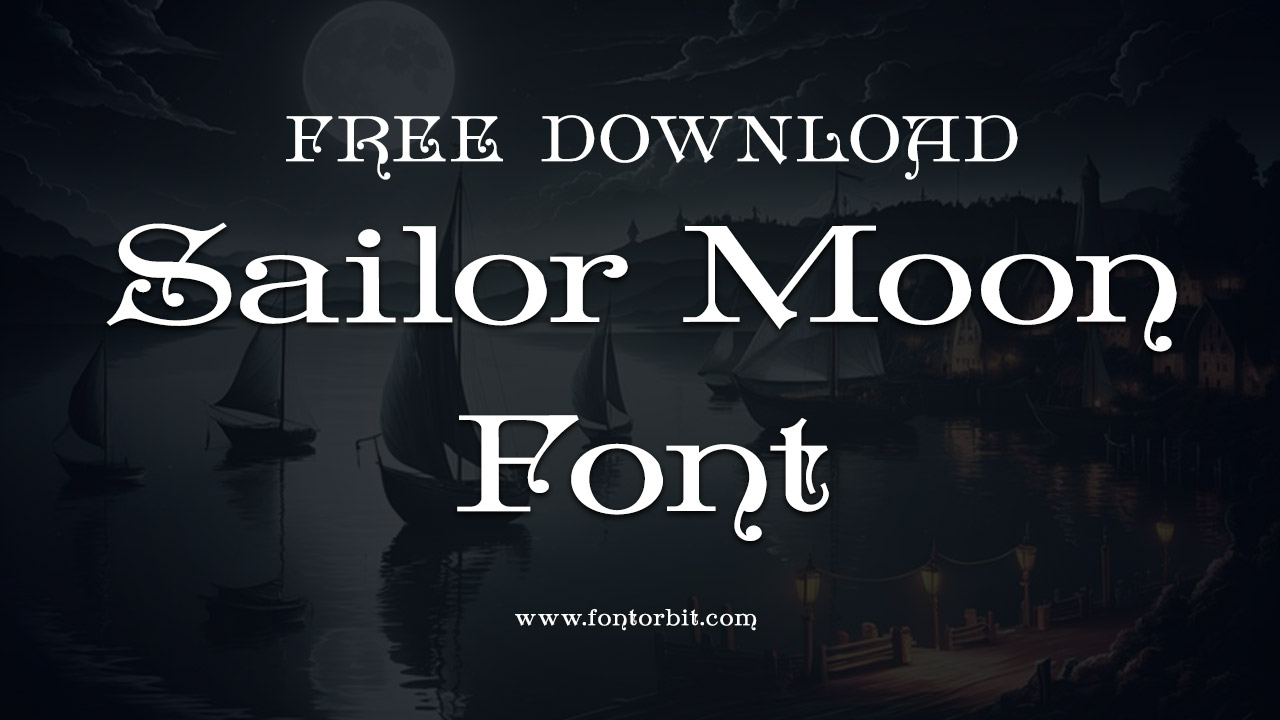
The Sailor Moon Font Family
- Wish MF
- Oh You Klid
- Hardly Worth It
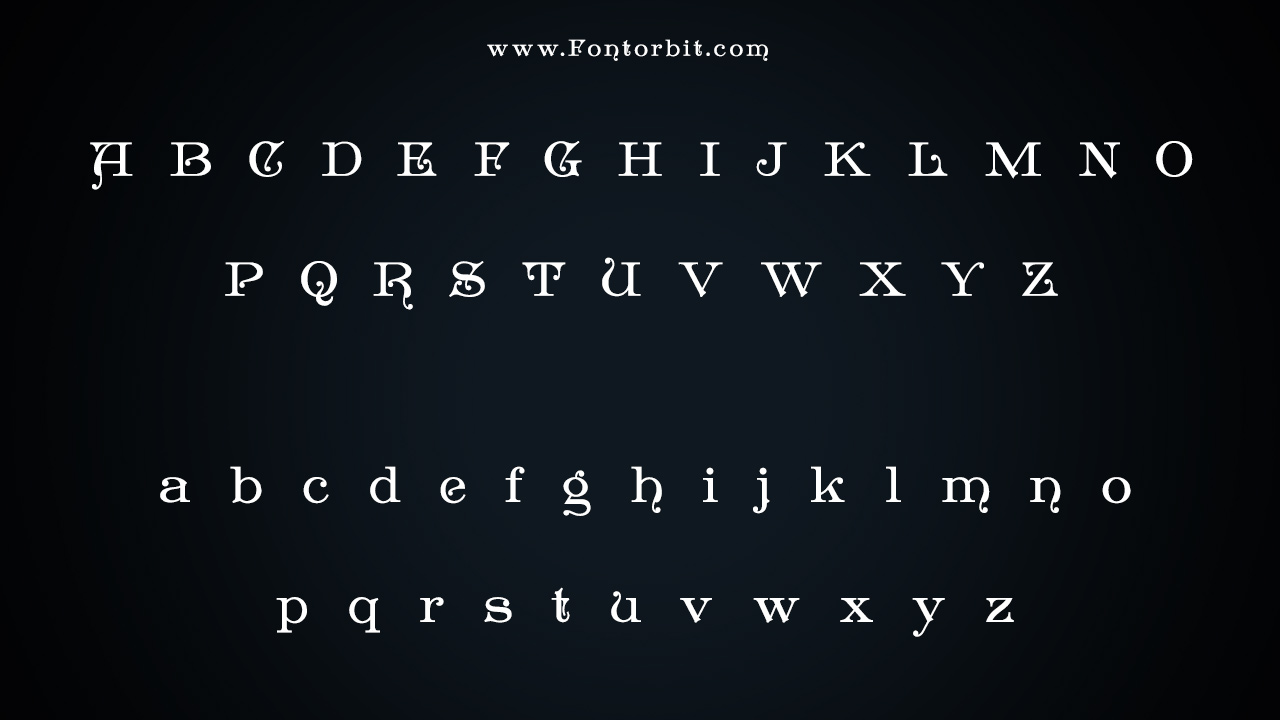
The Sailor Moon Font is perfect for any design project that requires a touch of magic and nostalgia. Its distinctive style makes it ideal for creating thematic designs, promotional materials, and merchandise that reflect the enchanting world of Sailor Moon.
The Sailor Moon Font captures the whimsical and nostalgic essence of the series. With Wish MF and Oh You Klid being the closest matches for key text elements, these fonts can effectively be used to create designs that evoke the magical spirit of Sailor Moon. Designed to capture the enchanting and nostalgic elements of the series, these fonts are ideal for high-impact and themed visual projects.
1.What Is The Sailor Moon Font?
The Sailor Moon Font refers to typefaces similar to those used in the series, including Wish MF for “Sailor Moon” and Oh You Klid for “Crystal.”
2.What Fonts Are Similar To Sailor Moon’s Font?
Similar fonts include Magical Girl, Starry Night, and Charmed, which evoke a whimsical or magical aesthetic.
3.What Are The Key Features Of The Sailor Moon Font?
These fonts feature a whimsical, magical design ideal for capturing the enchanting and nostalgic feel of the Sailor Moon series.
4.How To Use The Sailor Moon Font In Branding?
Use Wish MF and Oh You Klid for thematic designs, promotional materials, and merchandise to evoke the magical essence of Sailor Moon.